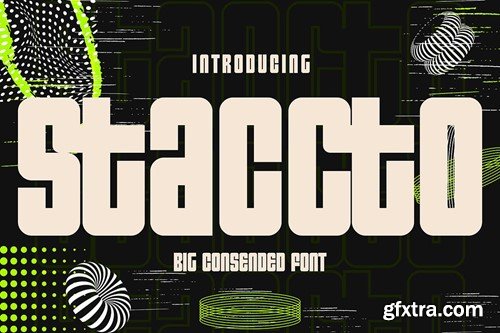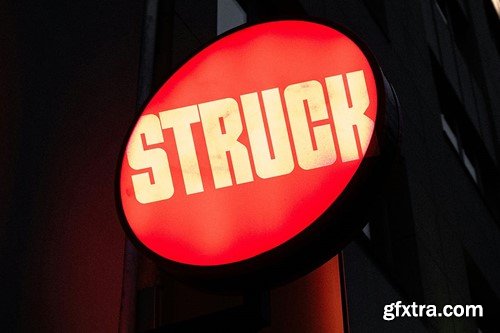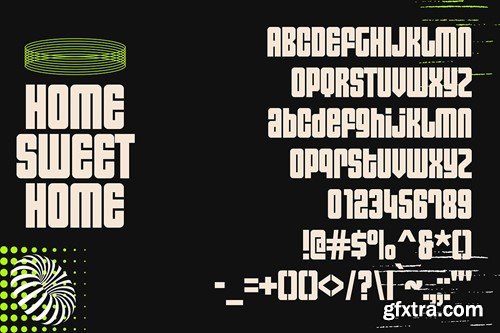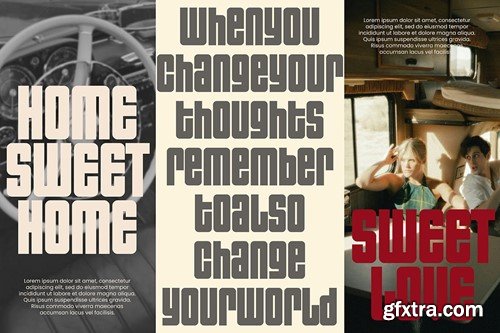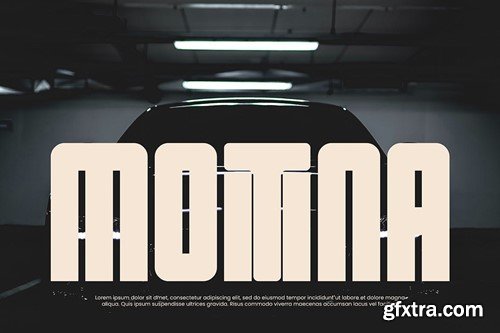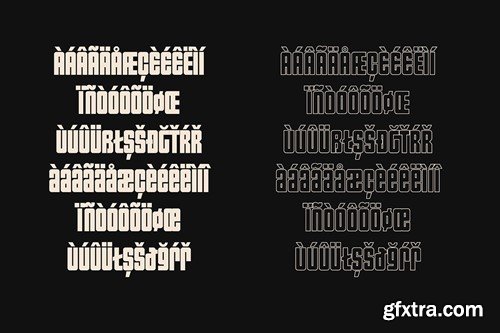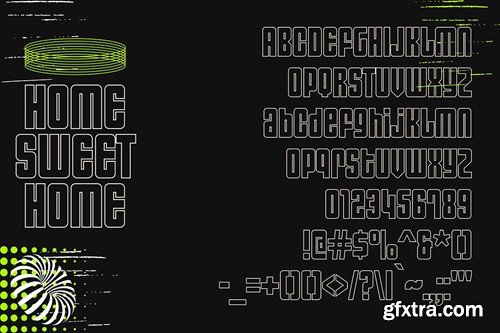
标准字体 - 简洁无衬线字体 25KSDJH
Staccto - Sans Serif Font 25KSDJH
Staccto - Sans Serif Font
Introducing Staccto, a simple and sans serif font. So perfect for you who needs a typeface for logo designs, magazine, social media, brochure, and many more.
Features
• Uppercase
• Lowercase
• Punctuation
• Numerals
• Multilingual Support